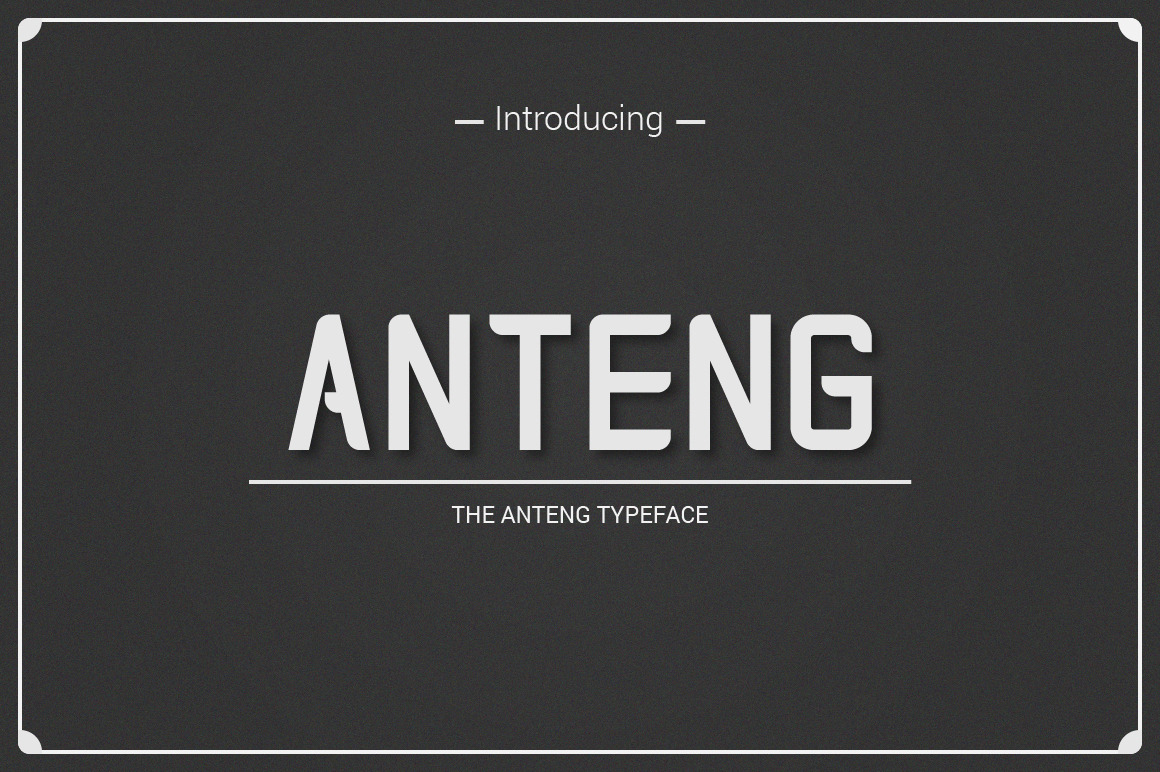
Anteng | Dual Width Font
Introducing The Anteng Typeface.
Anteng is condensed sans serif font with regular and light width. Also include numbers and standartsymbol. It's strong for display and regular text.
Feature:
- 2 Width ( Regular and Light )
- Standart symbol